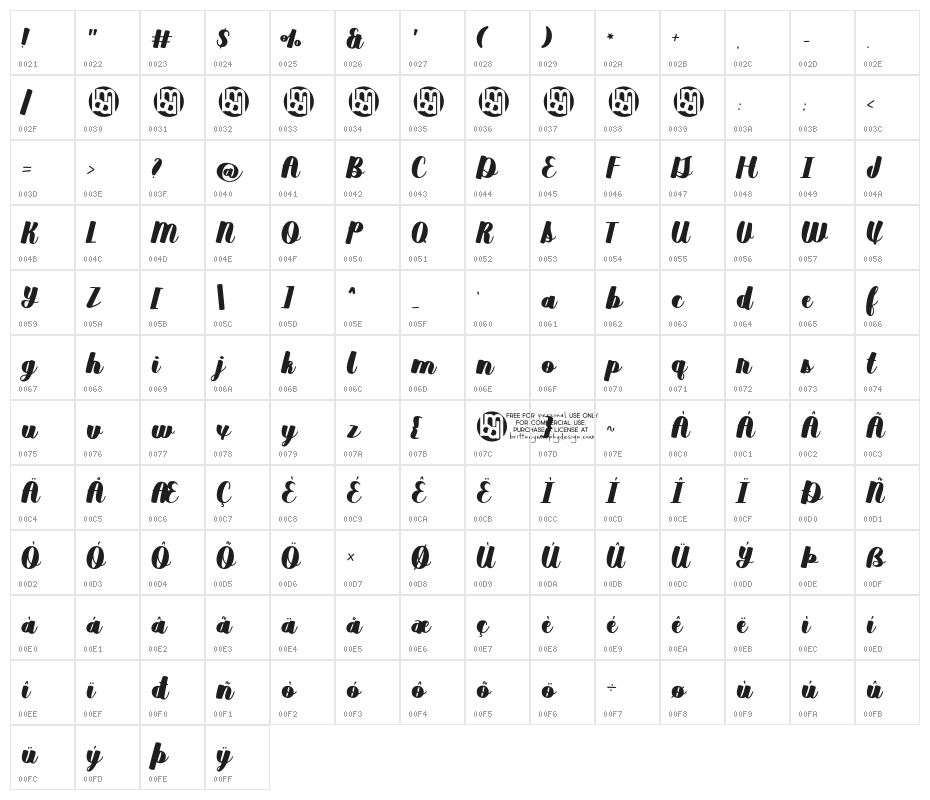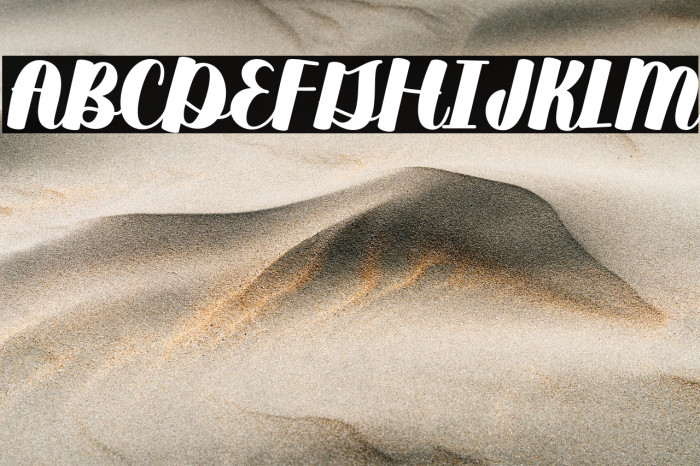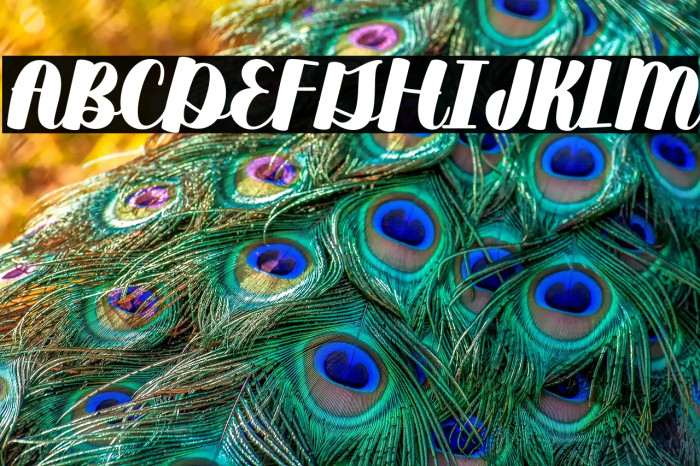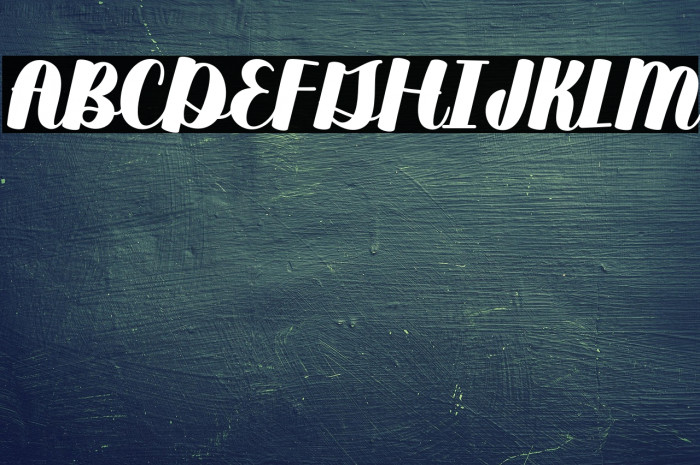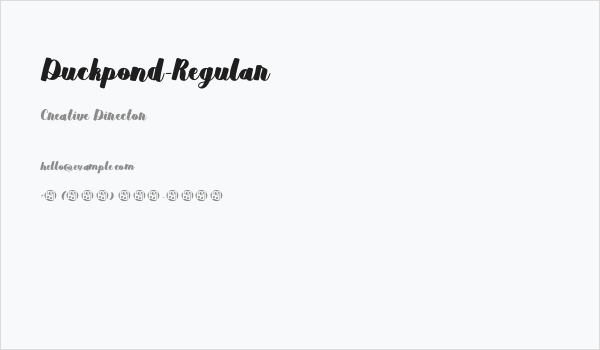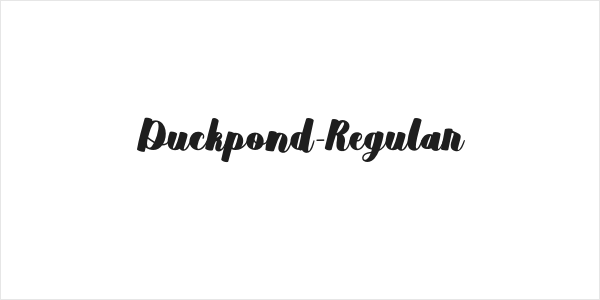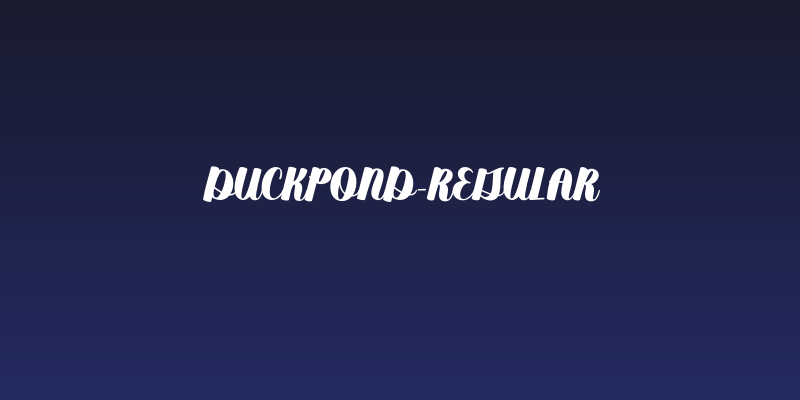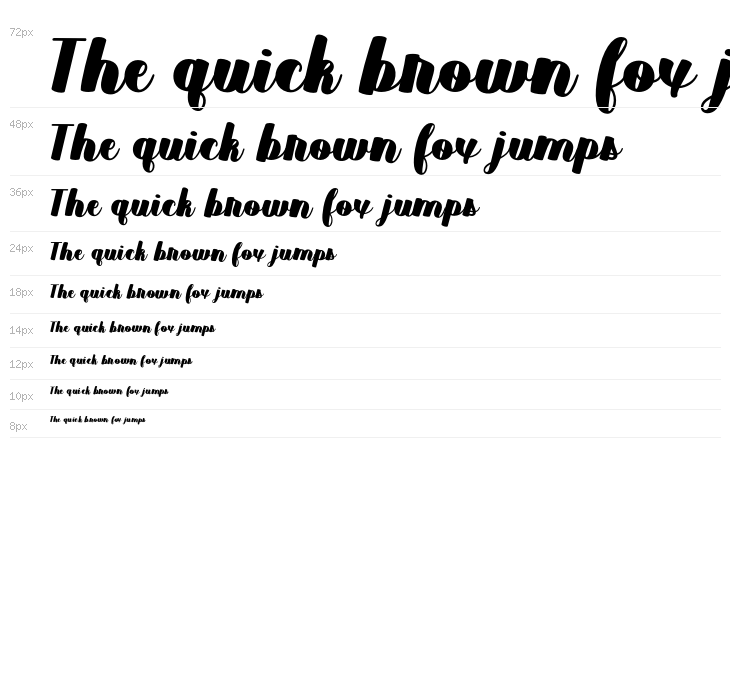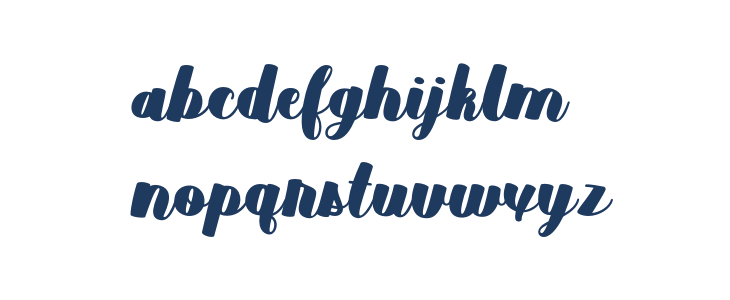
Duckpond-Regular Font
Duckpond-Regular Description
This font features a bold and dynamic script style with a strong presence. The characters are interconnected, creating a fluid and continuous flow. The uppercase letters are particularly striking, with exaggerated curves and loops that add a sense of movement and elegance. The lowercase letters maintain this fluidity, offering a harmonious balance between the uppercase and lowercase sets. The numbers and special characters are designed to match the overall aesthetic, ensuring consistency throughout. This font's boldness and unique style make it suitable for eye-catching designs.
| Proposed Projects | Ideal for branding, logos, headlines, and invitations where a bold and elegant script is desired. |